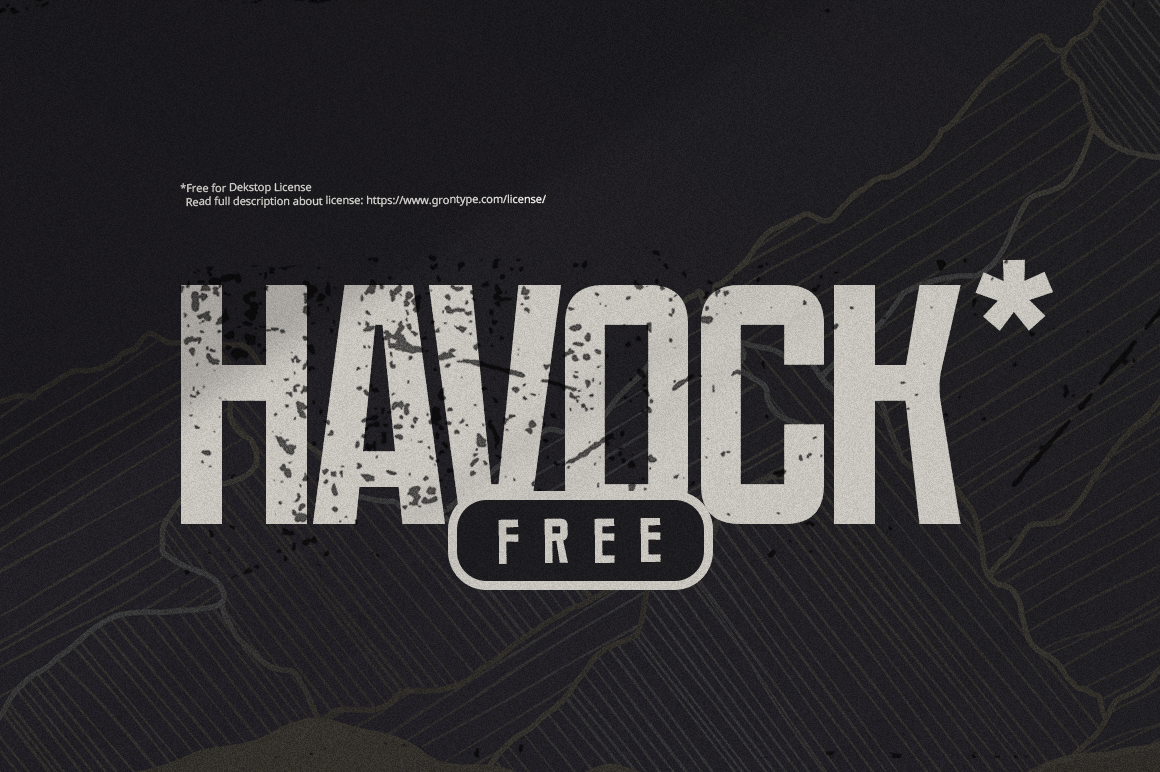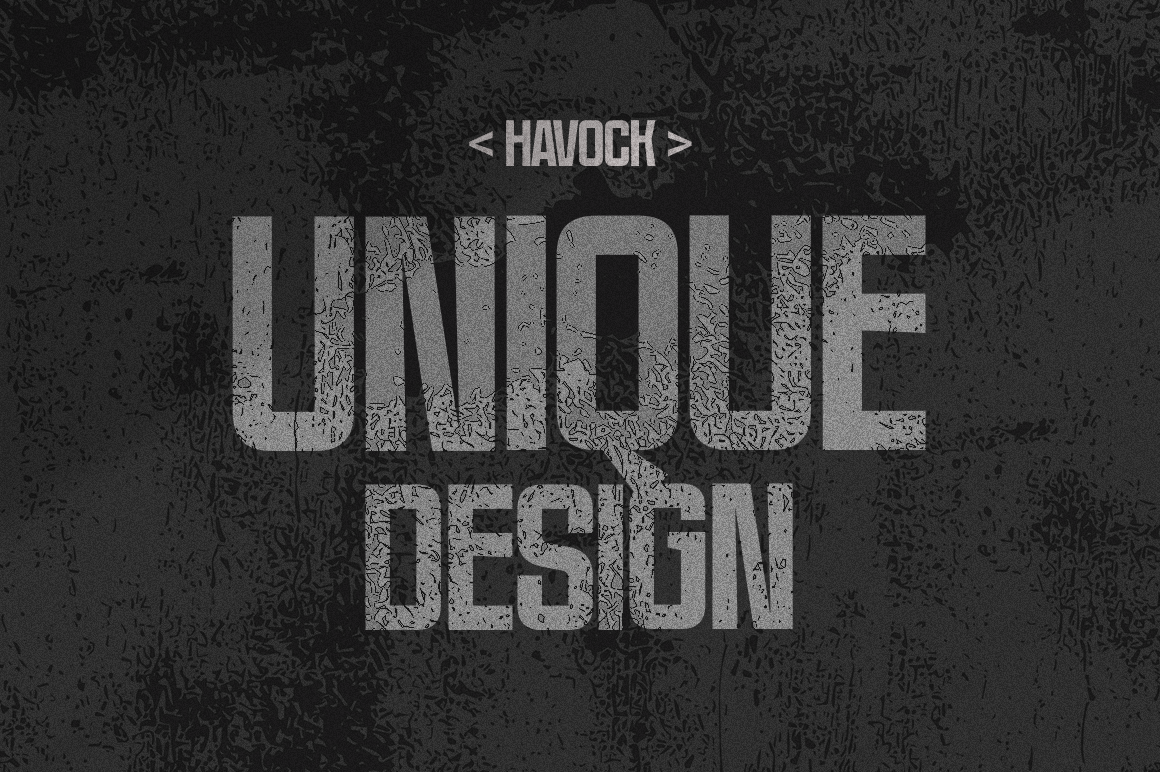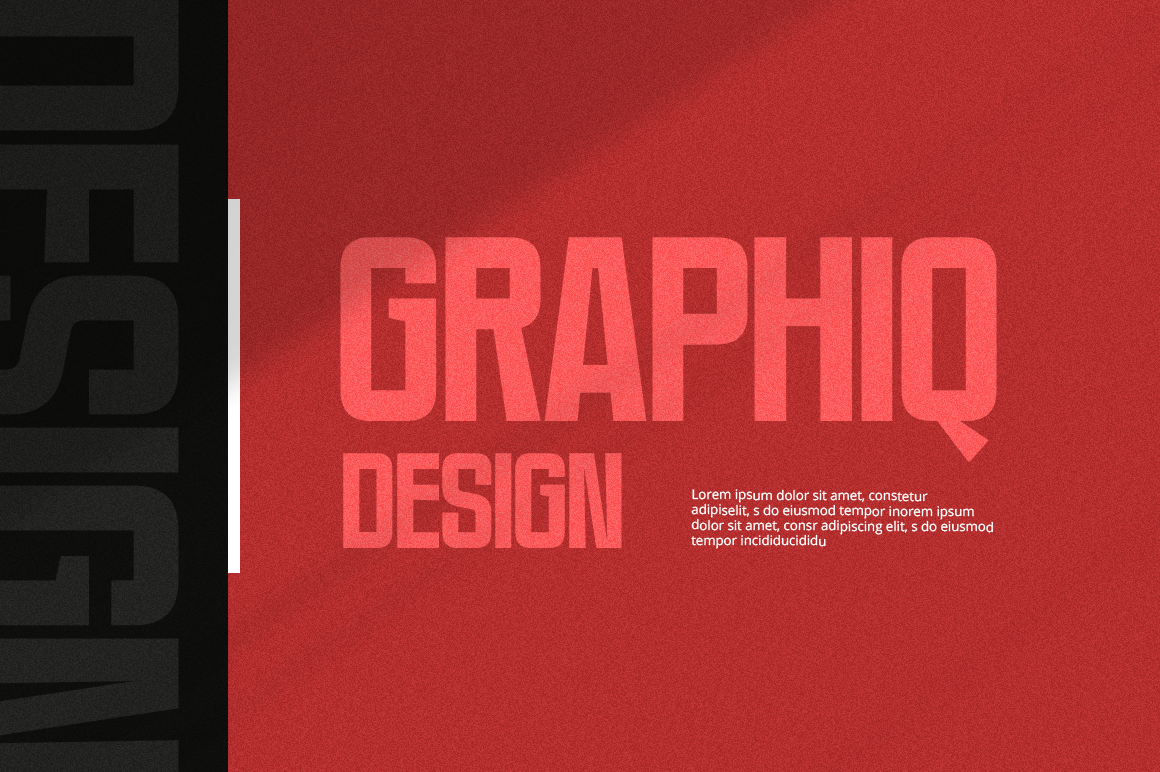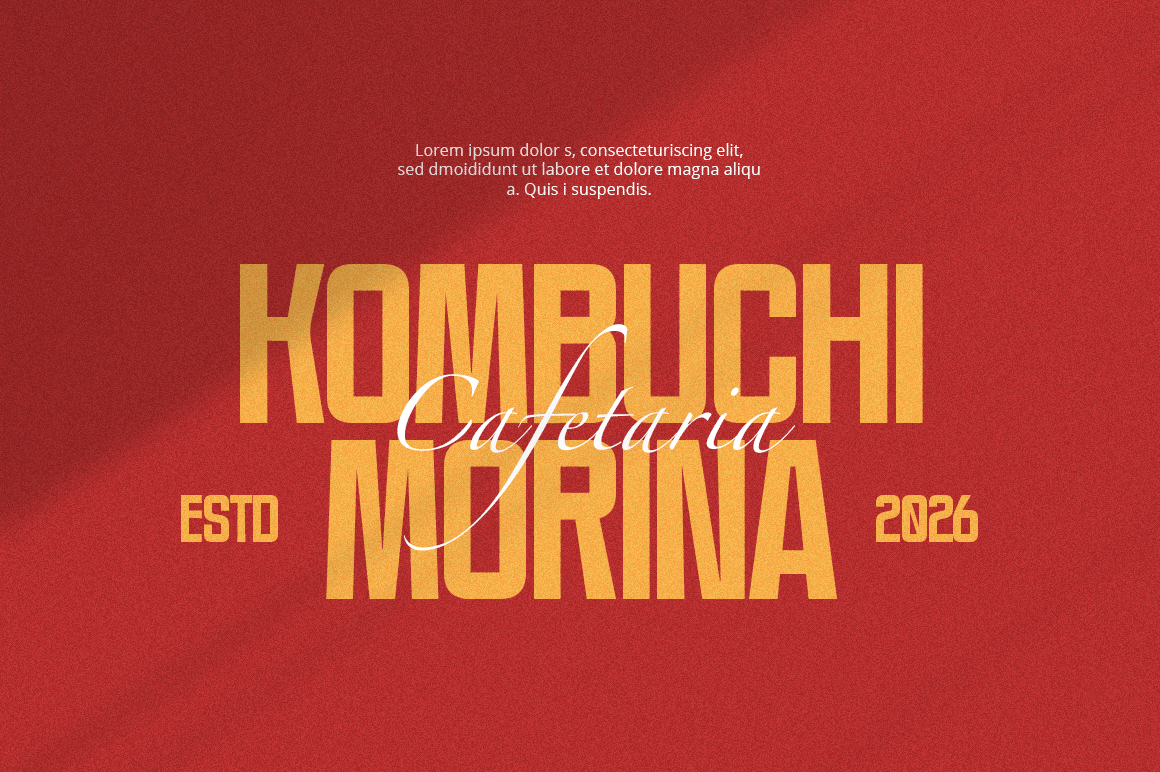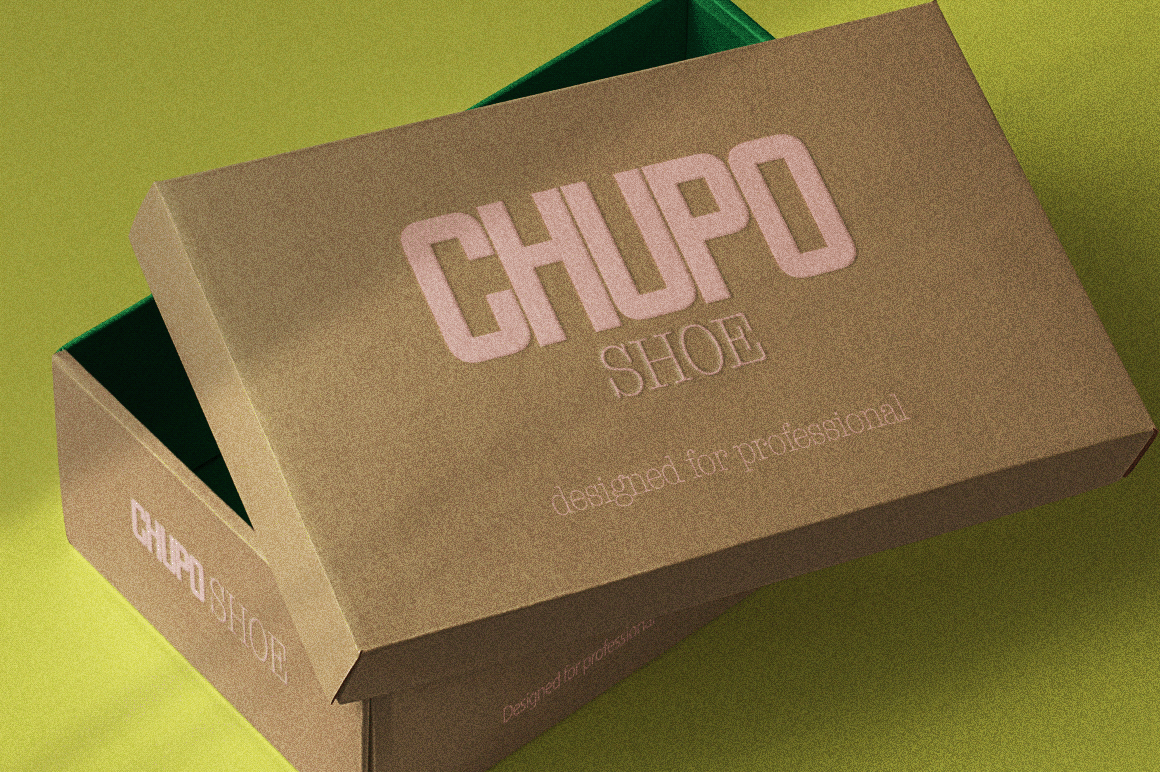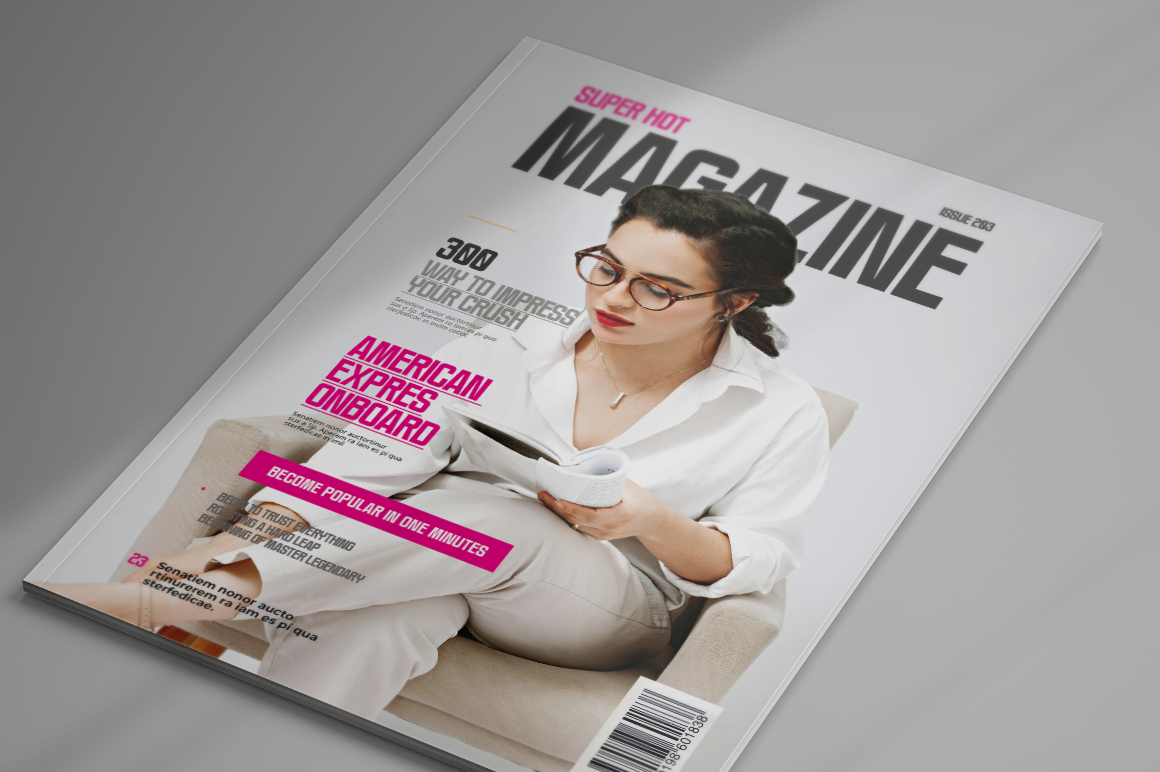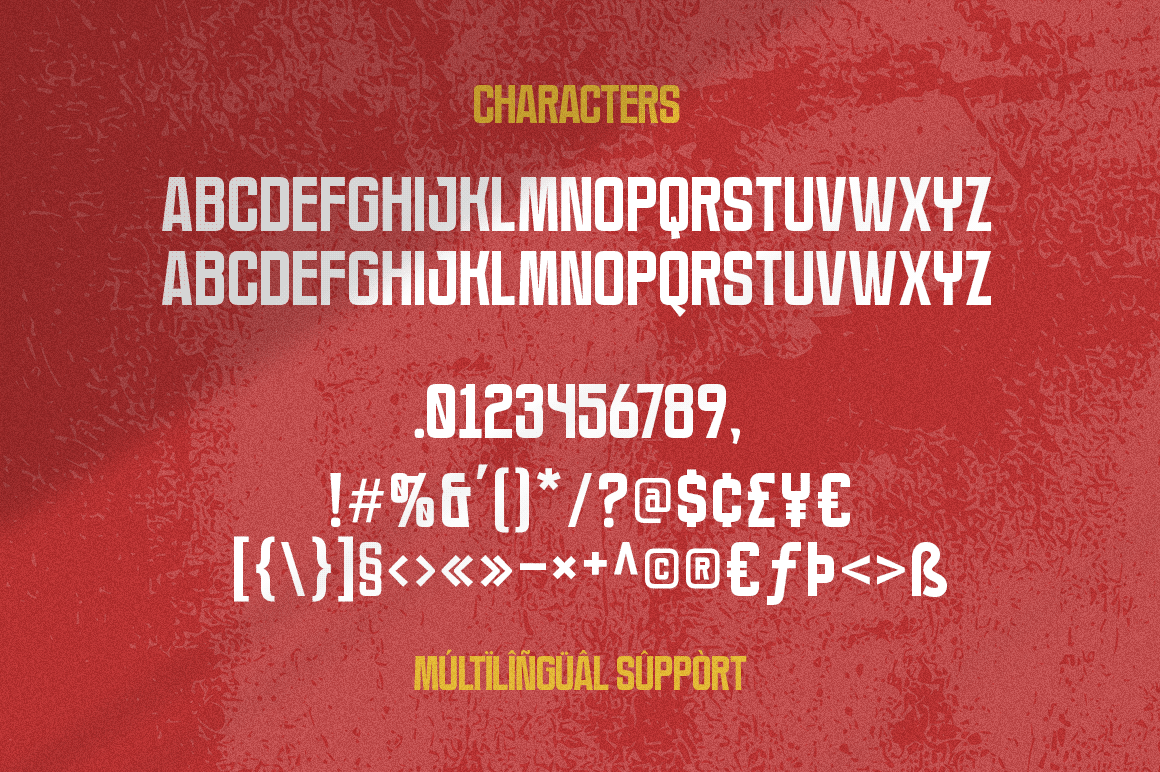
Havock - Free Semi-Condensed Sans Serif Font
Havock
from Jarnawi Saja is a bold, semi-condensed sans serif font that delivers a modern and commanding presence. With clean lines and a robust structure, Havock strikes the perfect balance between strength and style. Its slightly narrowed letterforms give it a compact appearance, making it ideal for impactful headlines, branding, posters, and editorial design.
The font’s contemporary aesthetic and confident stance make it well-suited for both digital and print media where clarity and visual authority are key. Whether used in uppercase for maximum punch or in sentence case for a sleek look, Havock ensures your message is delivered with power and precision.